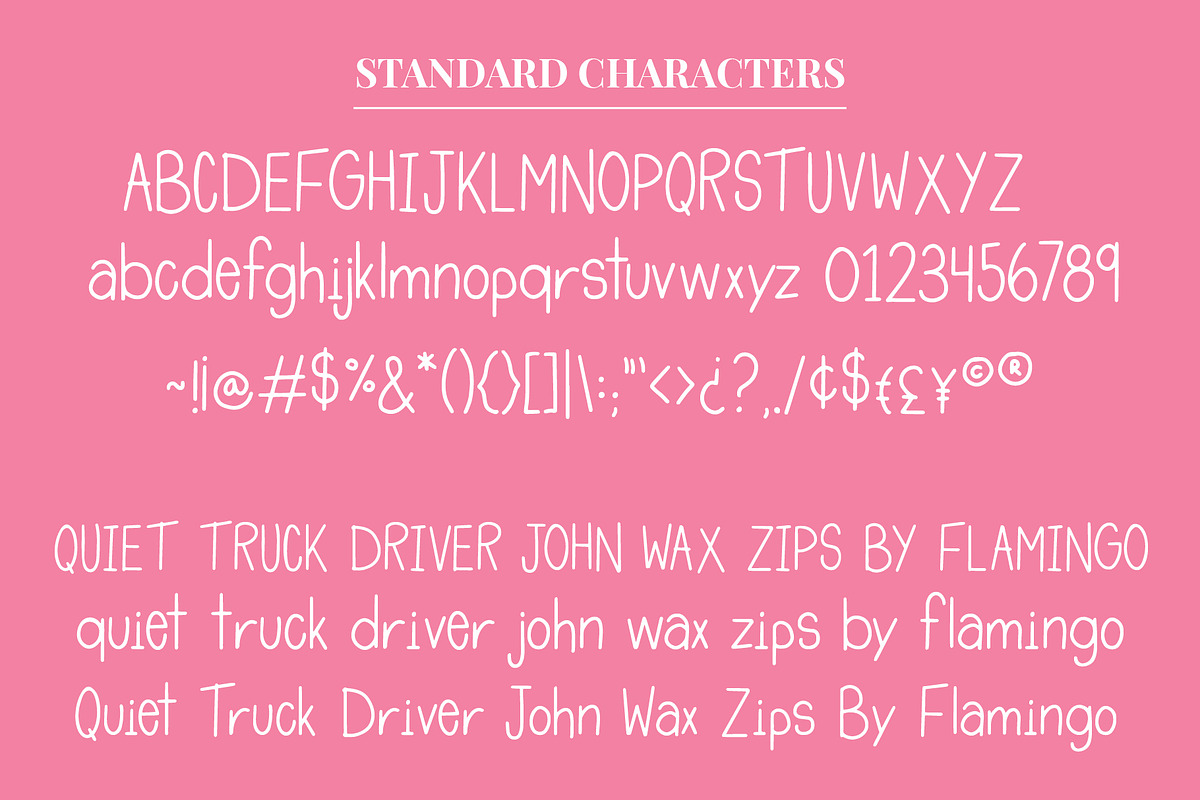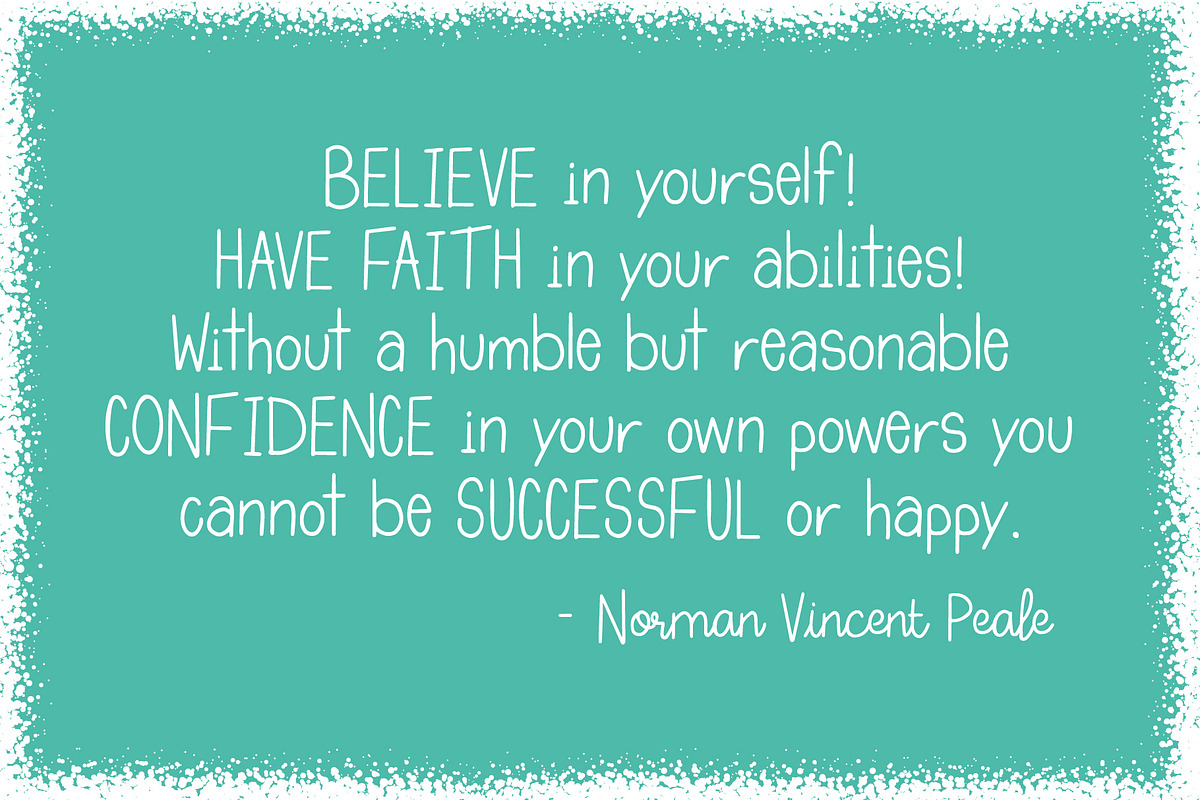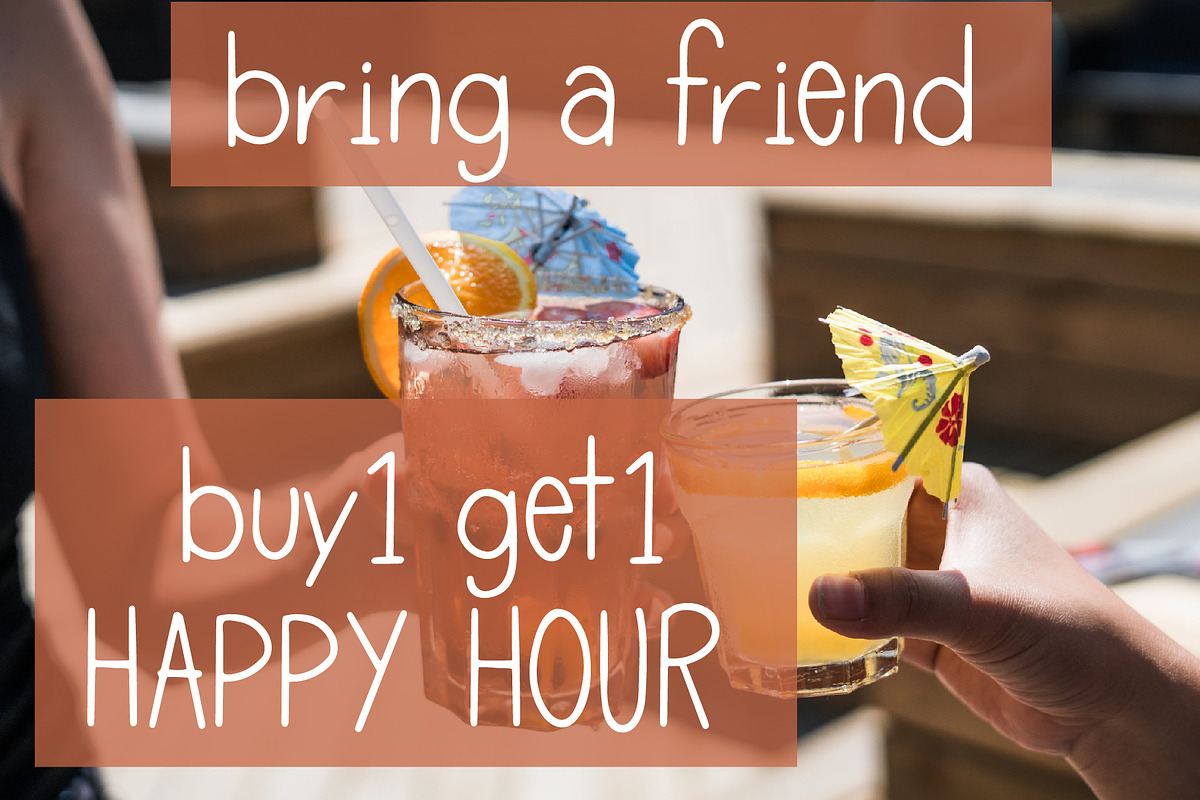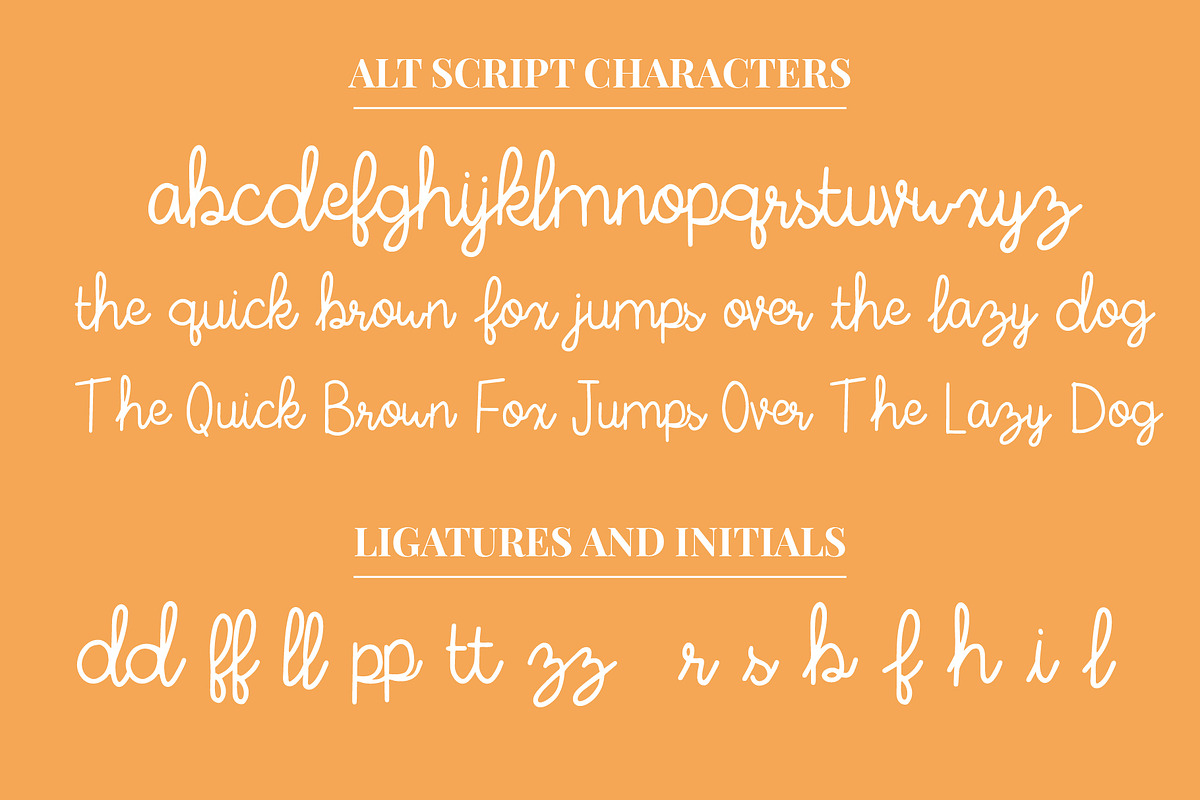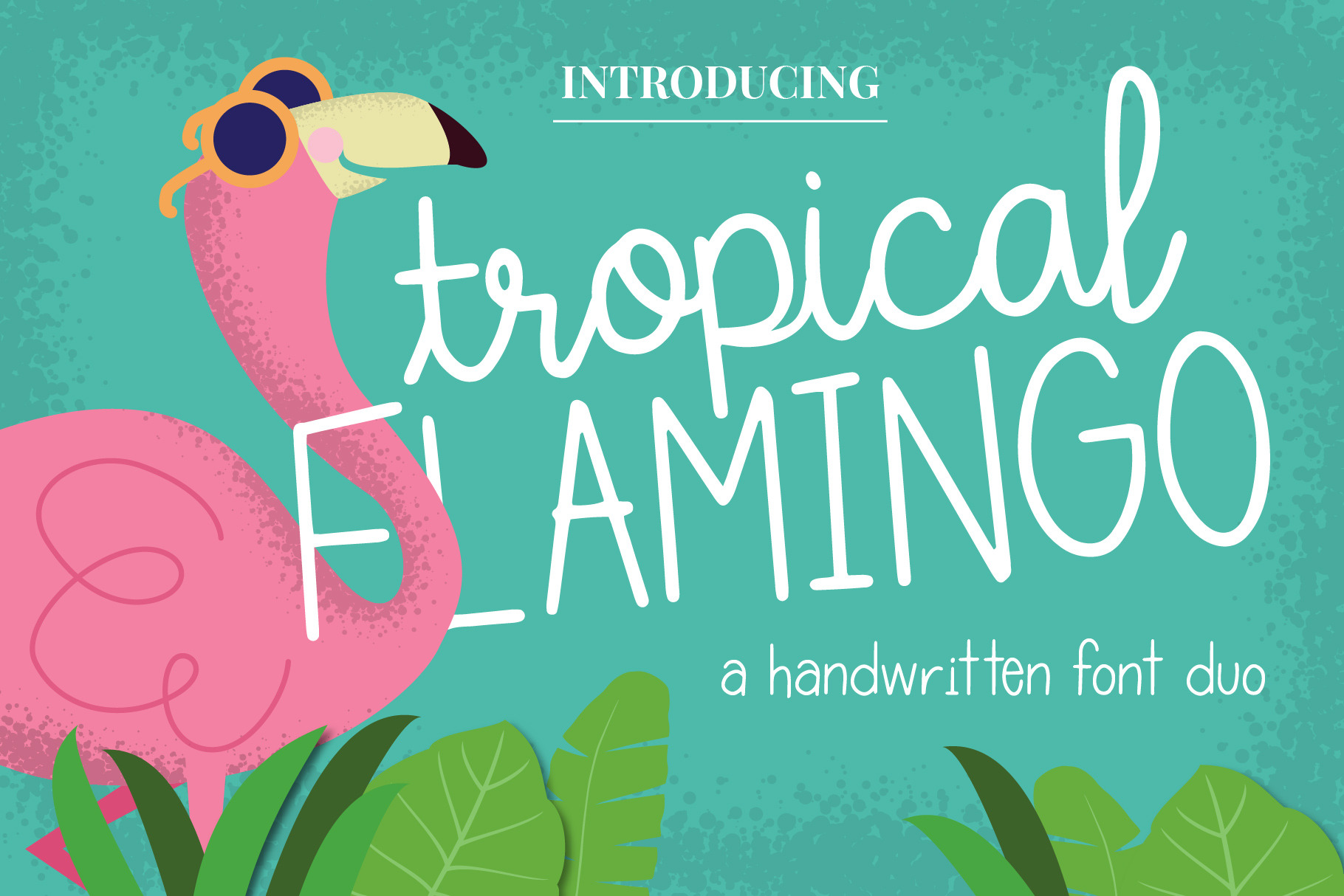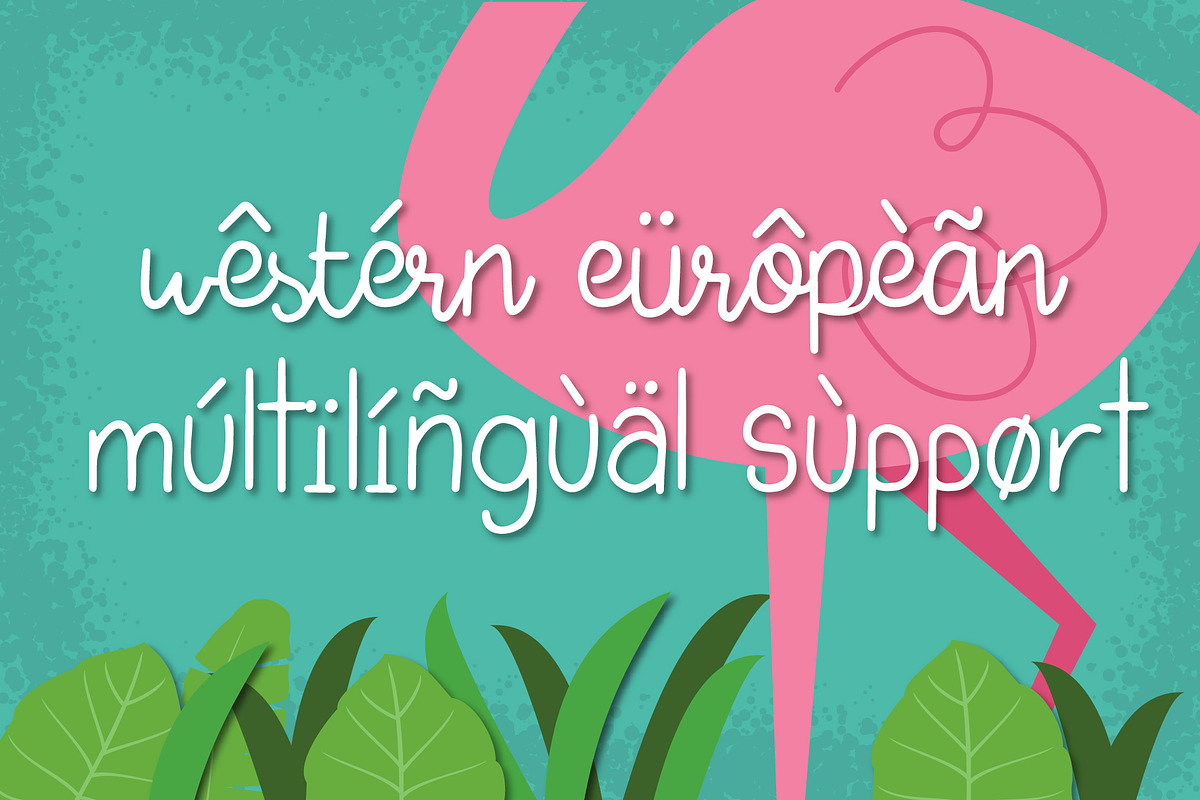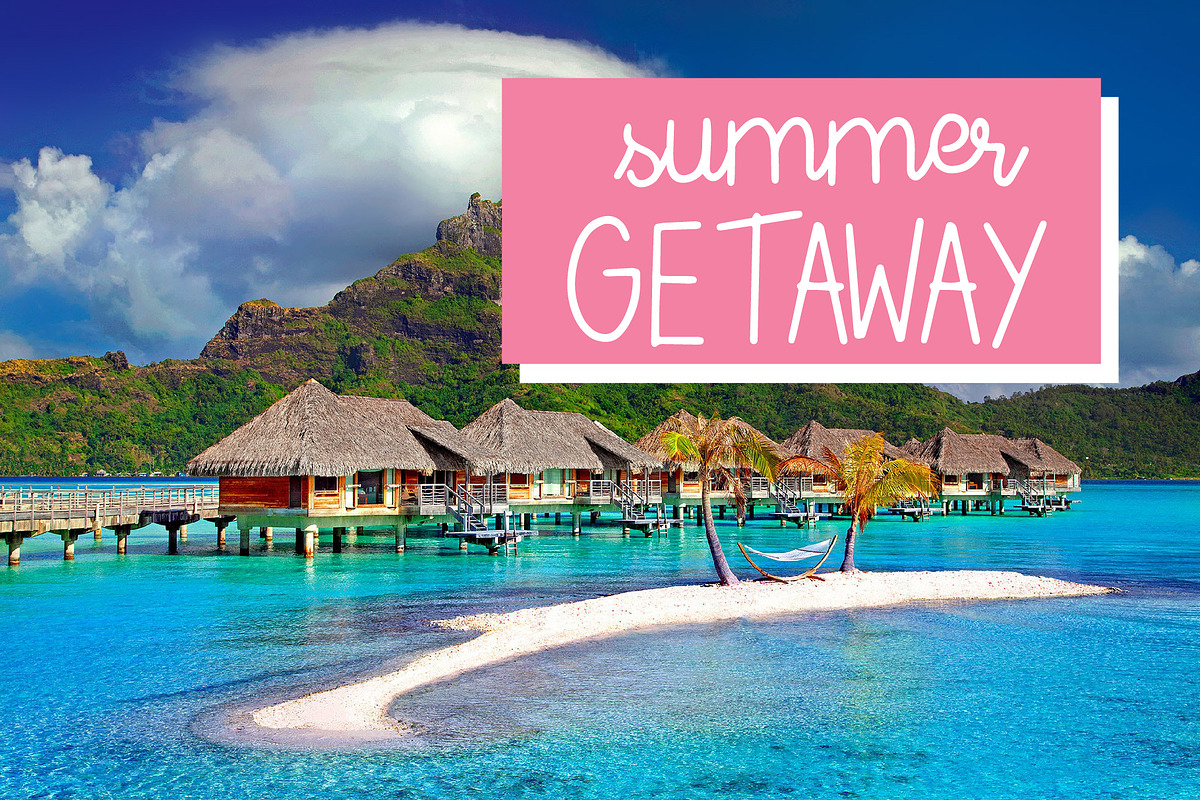
Tropical Flamingo Font Duo
Introducing, Tropical Flamingo. A fun san-serif and script font duo that was inspired by the tropics. This PUA font is perfect for professional designer, social media, or crafters.